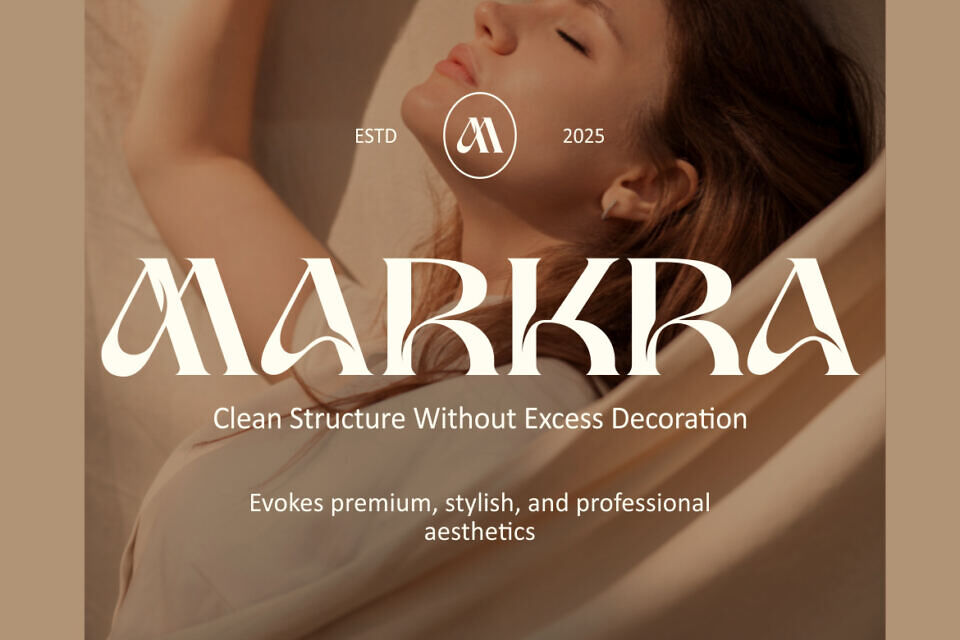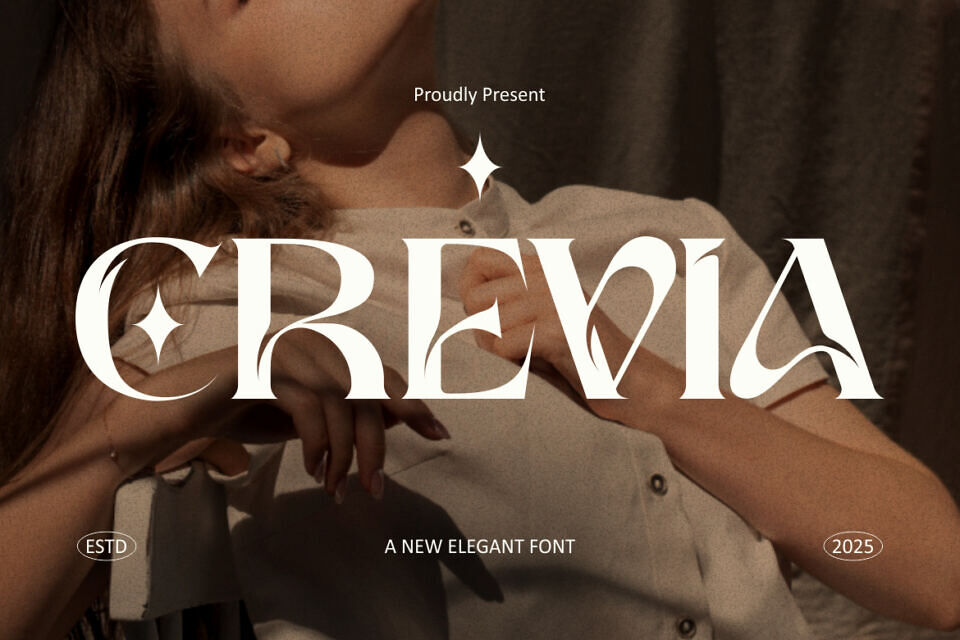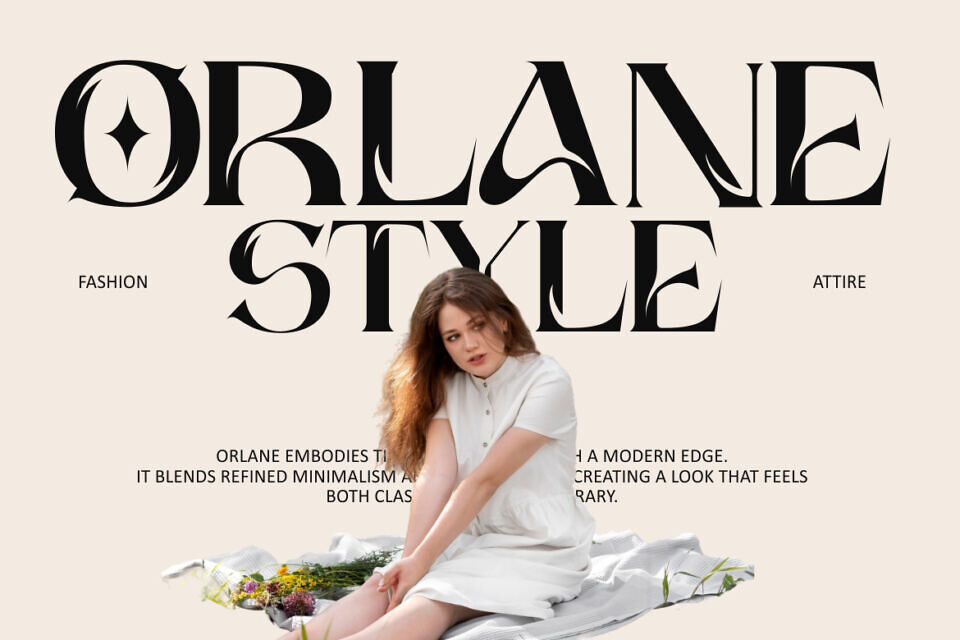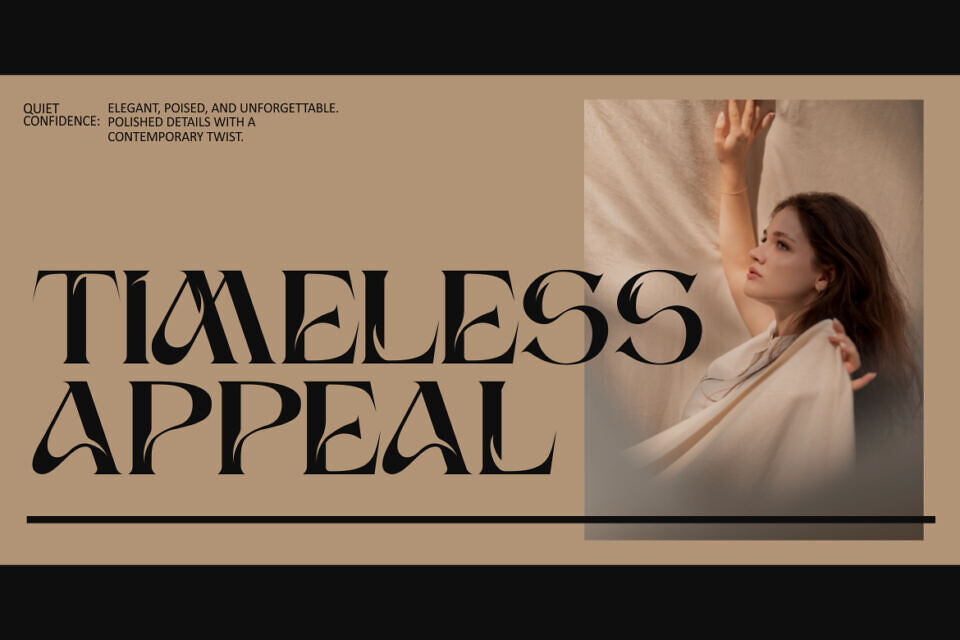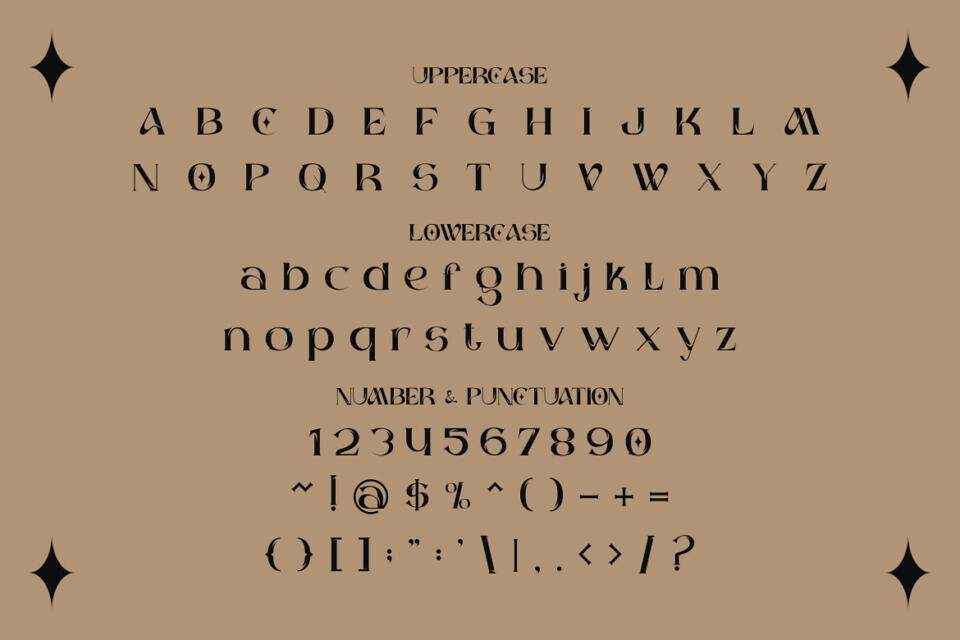
Crevia Font
Crevia Elegant Font is a refined serif typeface that combines precision and beauty. Its contrasting strokes and modern serifs give it a luxurious look. With subtle curves and balanced proportions, this font feels sophisticated yet approachable. Its clean design and flowing structure make it suitable for both contemporary and classic designs, adding a touch of artistry and elegance to any project.
Perfect for logo design, branding, editorial layouts, fashion magazines, invitations, and packaging, this font embodies style and confidence. It’s also ideal for posters, titles, and social media graphics where elegance and impact are essential.